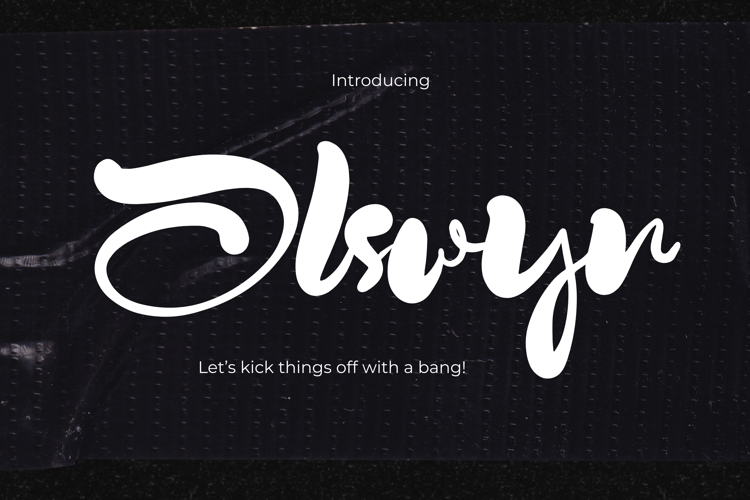
Oslin Bold Brush Script Font
Oslin is a bold hand-drawn brush script font created with expressive strokes, organic shapes, and a naturally imperfect handwritten feel. Its energetic letterforms bring personality and movement to typography, making it an excellent choice for designs that need a strong handcrafted identity.
Perfect for logos, brand identities, product packaging, labels, posters, apparel, merchandise, social media designs, advertising, editorial layouts, invitations, quotes, creative headlines, and promotional graphics. Oslin is especially suited to projects that need a modern brush lettering style with an authentic and spontaneous character.
The typeface includes uppercase and lowercase letters, numbers, punctuation, symbols, and an extended multilingual character set, making it suitable for a wide variety of international design projects.
- Full uppercase alphabet
- Full lowercase alphabet
- Numerals
- Punctuation & symbols
- Extended Latin characters
- Multilingual language support
Oslin is an easy-to-use display script for branding, lettering, packaging, logo design, posters, and contemporary creative projects.